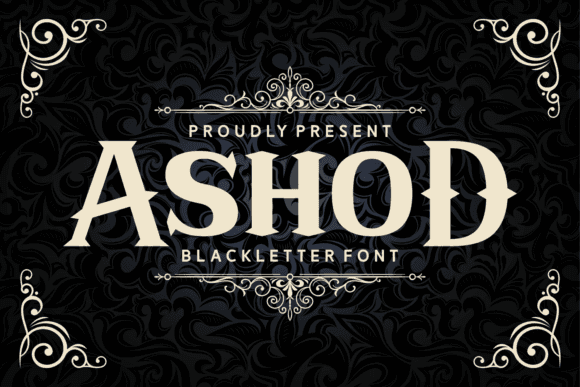
Ashod Font for Cricut, Silhouette and Printable Designs
This digital font package includes a sleek, all-purpose typeface designed for compatibility with cutting machines and printable design workflows. Ashod’s smooth structure and clear letterforms make it especially effective for crafting projects, labels, and DIY merchandise. As a font entity, it ensures sharp results in both print and cut paths. Its versatility extends to various applications, from minimalist branding to intricate invitations, making it a favorite among designers. Furthermore, its unique characteristics make it an ideal choice for those looking to incorporate the banda aceh font for designs that stand out. Whether you're creating promotional materials or personal projects, this font package is sure to elevate your work. With its versatile design, this package is ideal for creators looking to enhance their projects with a modern touch. The azuka font for silhouette projects stands out with its bold aesthetics, ensuring that each design element captures attention. Whether you're crafting personalized gifts or professional branding materials, this font package elevates your creative possibilities.
Whether you're designing vinyl decals, custom apparel, or printable signs, Ashod provides a clean, legible foundation that scales beautifully across formats and materials.
- Clean, cuttable letterforms ideal for crafting
- Great readability on both screen and print
| Design Style | Modern, clean sans-serif | Decorative script | Retro serif |